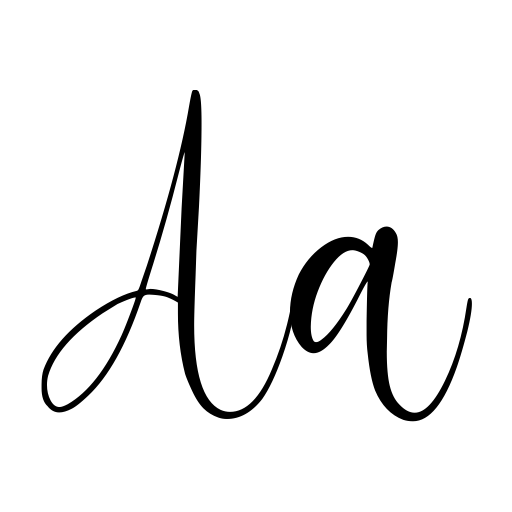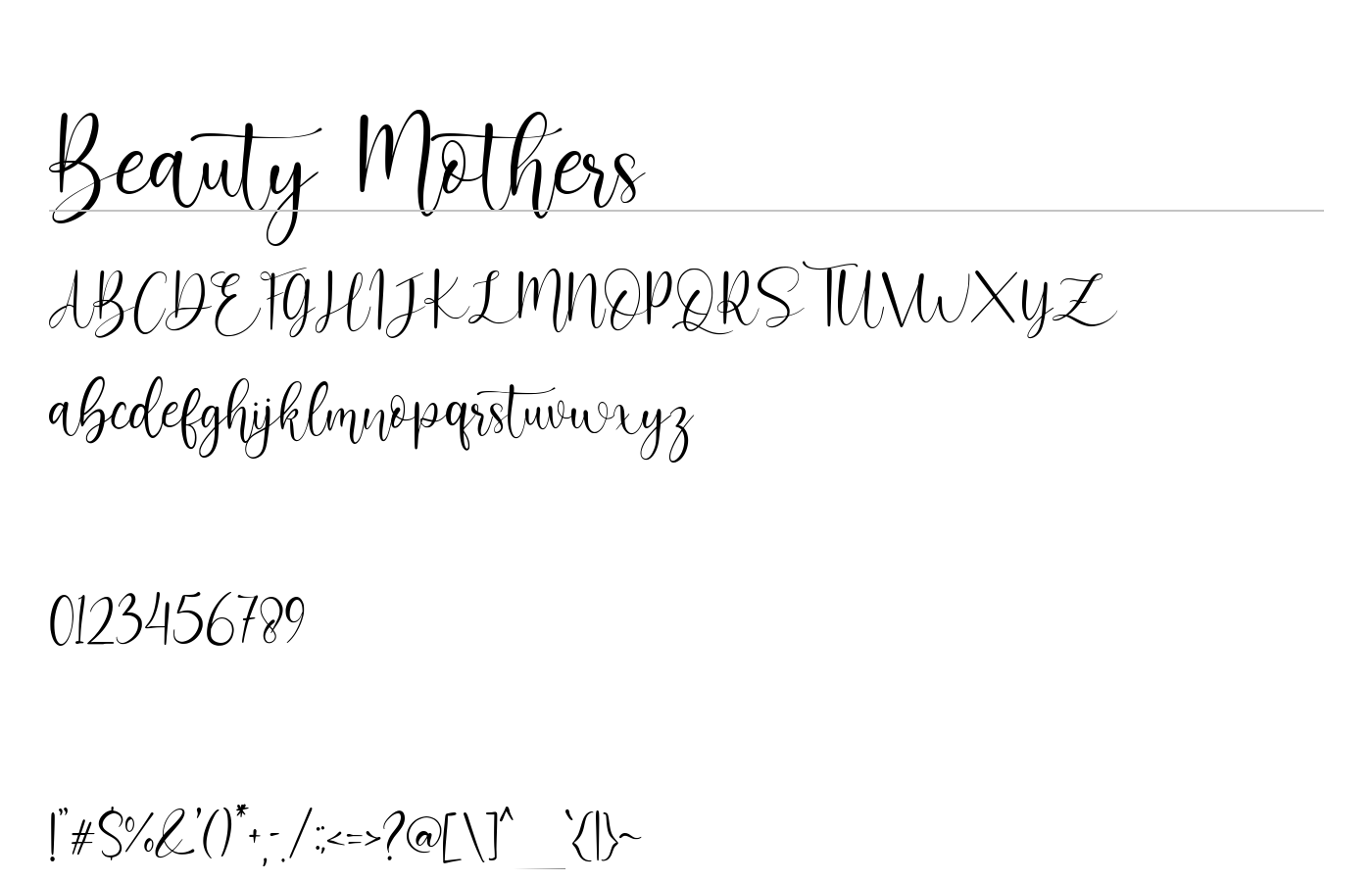
Beauty Mothers is a delicate script font with elegant, flowing strokes that combine a light weight and tall x-height to create a graceful appearance. Its handwritten style features smooth curves and subtle flourishes, making it perfect for feminine branding, invitations, and stylish logos. This font works beautifully in designs that want to convey warmth, charm, and sophistication.
Beauty Mothers Font
About Beauty Mothers Font
| Designer | JunCreative (Muhamad Junaid) @mjart96 |